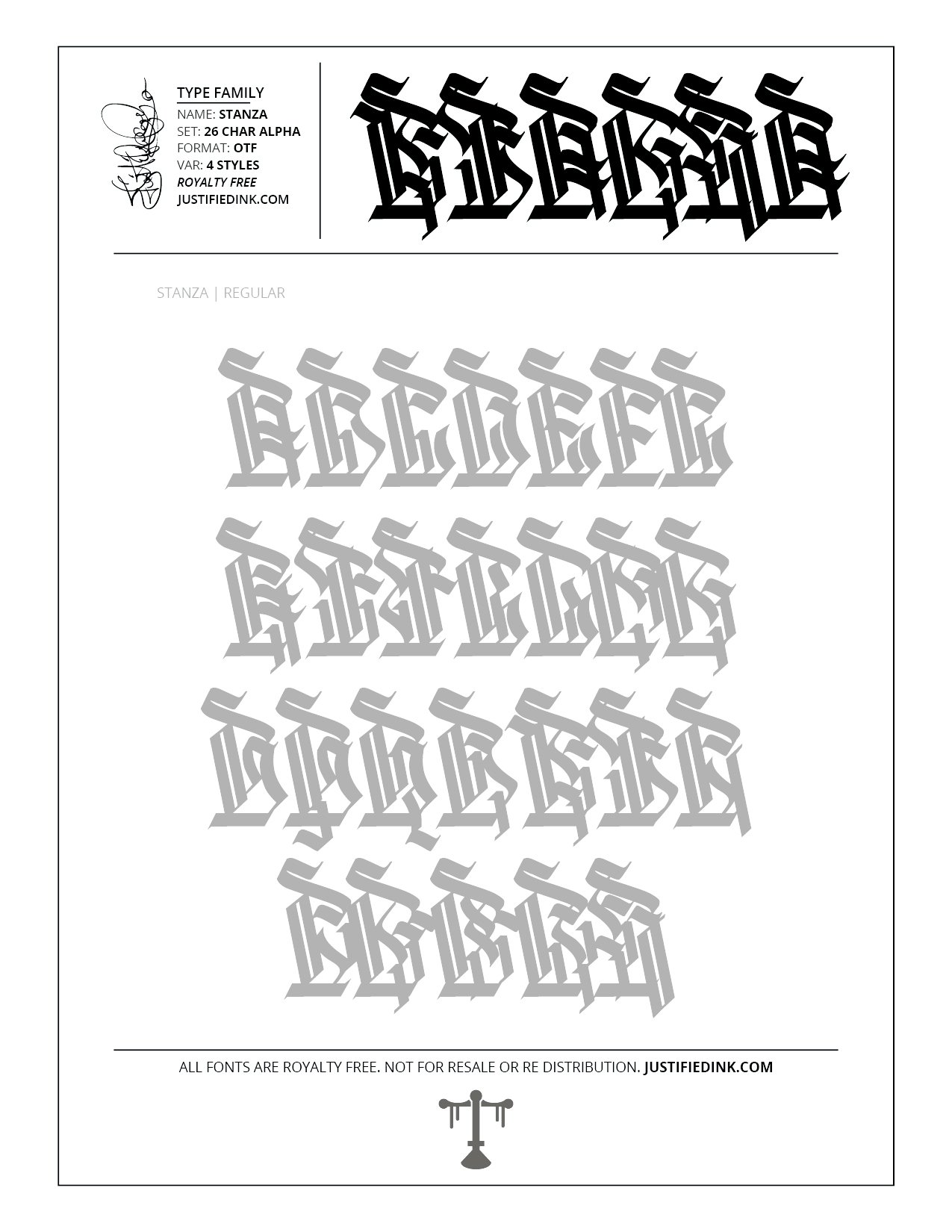
Stanza (4 styles) - Custom Font by Justified Ink
NAME: Stanza
Stanza is built for the poetic flow. Whatever comes up, comes out and this is the font to write it with. Locked together with 3 variations rotating several ways to achieve different effects.
This font is part of the collection by Justified Ink, called Blackletter II. After 15+ years creating, I began to focus on building personal libraries of my work. The Blackletter II Collection was created through writing page after page, and countless hours over a 2 year span of daily practice. Each font from this collection has been hand drawn, manually vectored, and custom set as a type-able font. It comes in a full set of 26 char alpha. Each font family has variations in styles and/or non-alpha chars.